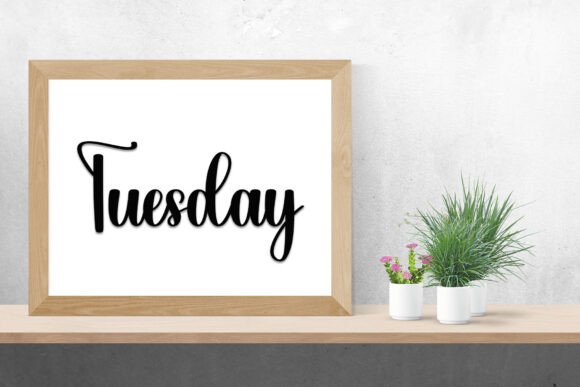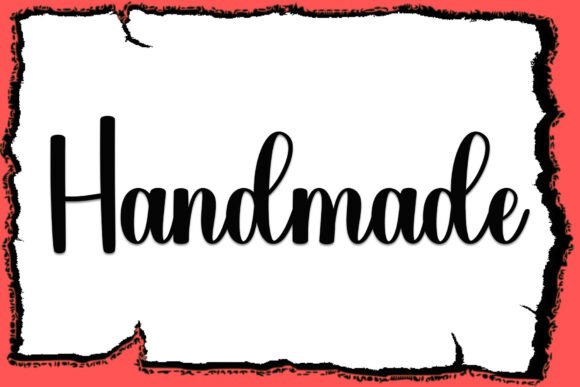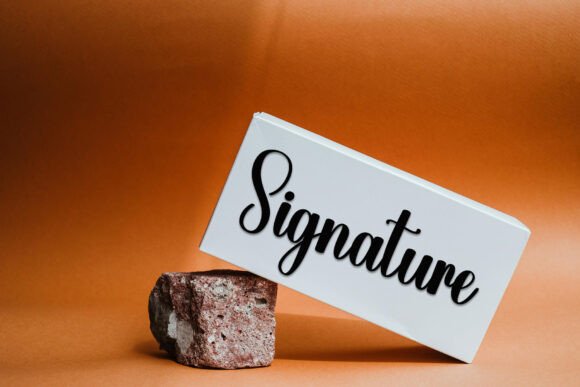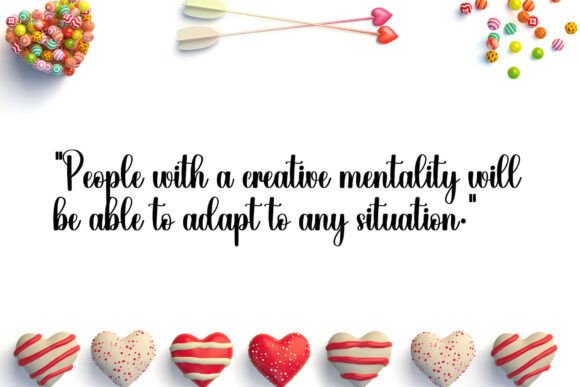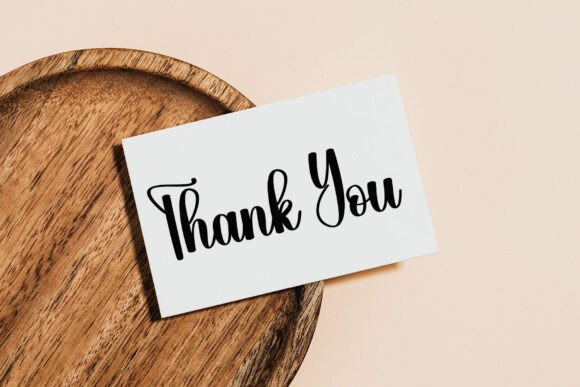
The Denish Font: Elevating Your Designs with Elegance and Class
I’ll never forget the time I was working on a project for a high-end client, and I was struggling to find the perfect font to match their brand’s sophisticated aesthetic. I had tried countless fonts, but none of them seemed to capture the essence of elegance and class that I was looking for. That’s when I stumbled upon the Denish font, a trendy handwritten font with a contemporary atmosphere and impeccable form. Inspired by timeless classic calligraphy, Denish was the perfect solution to my design dilemma.
A Personal Review of Denish
What I Love About Denish
- ✨ Elegant and Refined: Denish has a sophisticated feel to it, making it perfect for high-end designs, luxury brands, and elegant events.
- ✅ Versatile: This font can be used for a variety of design projects, from wedding invitations to business cards, and even social media graphics.
- 💫 Contemporary yet Classic: Denish strikes the perfect balance between modern trends and timeless classic calligraphy, making it a versatile font for any design project.
While Denish is an exceptional font, there are a few things to keep in mind:
- 🤔 Limited Use in Body Text: Due to its elegant and refined nature, Denish may not be the best choice for body text, especially for longer paragraphs.
- ⚠️ Requires Attention to Kerning: As with any font, it’s essential to pay attention to kerning to ensure that the text looks polished and professional.
The Story Behind Denish
Denish was created by a talented font designer who was inspired by the classic calligraphy of the past. With a passion for typography and a keen eye for detail, the designer crafted Denish to be a modern, elegant font that would add a touch of sophistication to any design project.
Q: What is the best use for Denish?
A: Denish is perfect for designs that require a touch of elegance and sophistication, such as wedding invitations, luxury brands, and high-end events.
Q: Can I use Denish for body text?
A: While Denish is an elegant font, it may not be the best choice for body text, especially for longer paragraphs. It’s better suited for headlines, titles, and short paragraphs.
Q: Is Denish a versatile font?
A: Yes, Denish is a versatile font that can be used for a variety of design projects, from digital graphics to print materials.